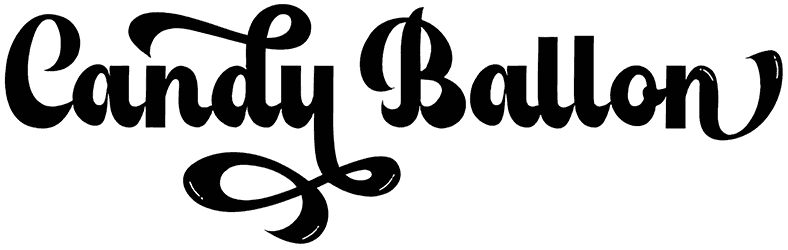
Candy Ballon Font
Having a vintage and natural mood would be possible if you choose this groovy font, named Candy Ballon, for your present layout. The smooth and classic style of letters will throw a charming vibe into your designs like a luxurious restaurant logo. Even though this fancy font doesn’t cover numbers and punctuation marks, don’t miss it and use it to create a ravishing draft.